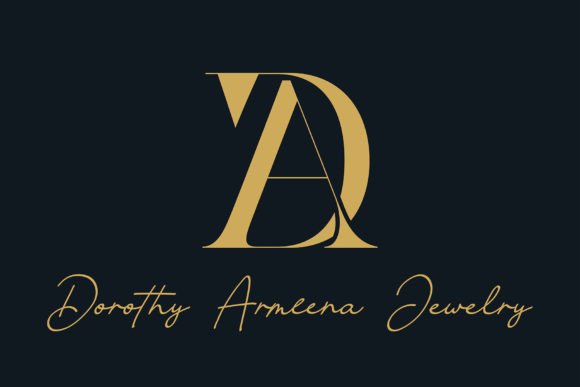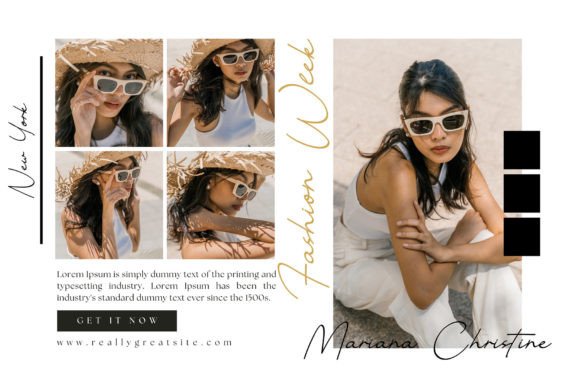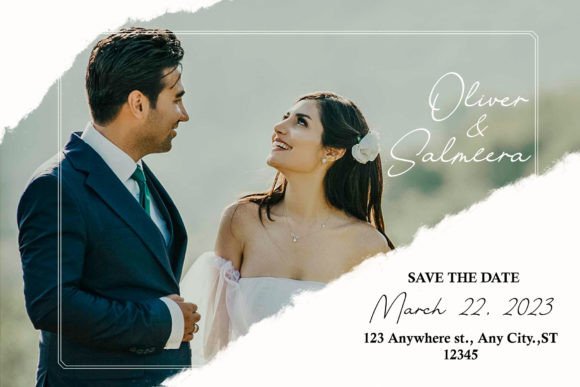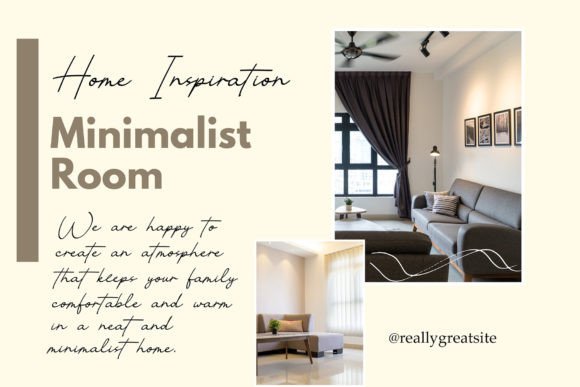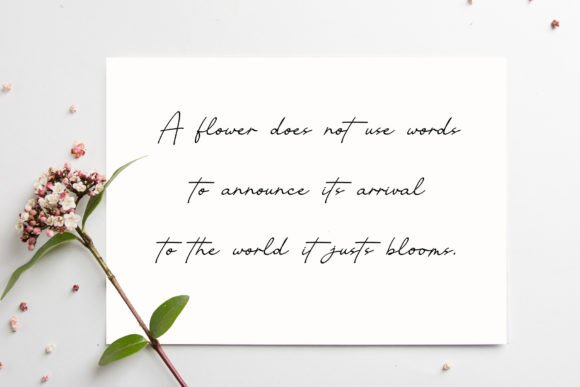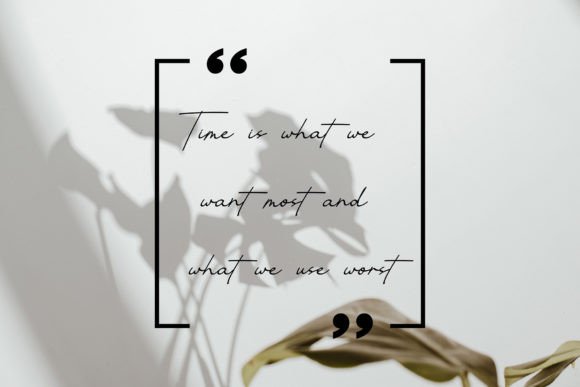
Introduction to Nottingham City Font
Nottingham City is a modern signature script font that captures elegance and sophistication.
With its sleek and flowing letterforms, it adds a touch of luxury to any design project Ideal for branding, logos, and invitations, Nottingham City exudes confidence and professionalism.
Key Features of Nottingham City Font